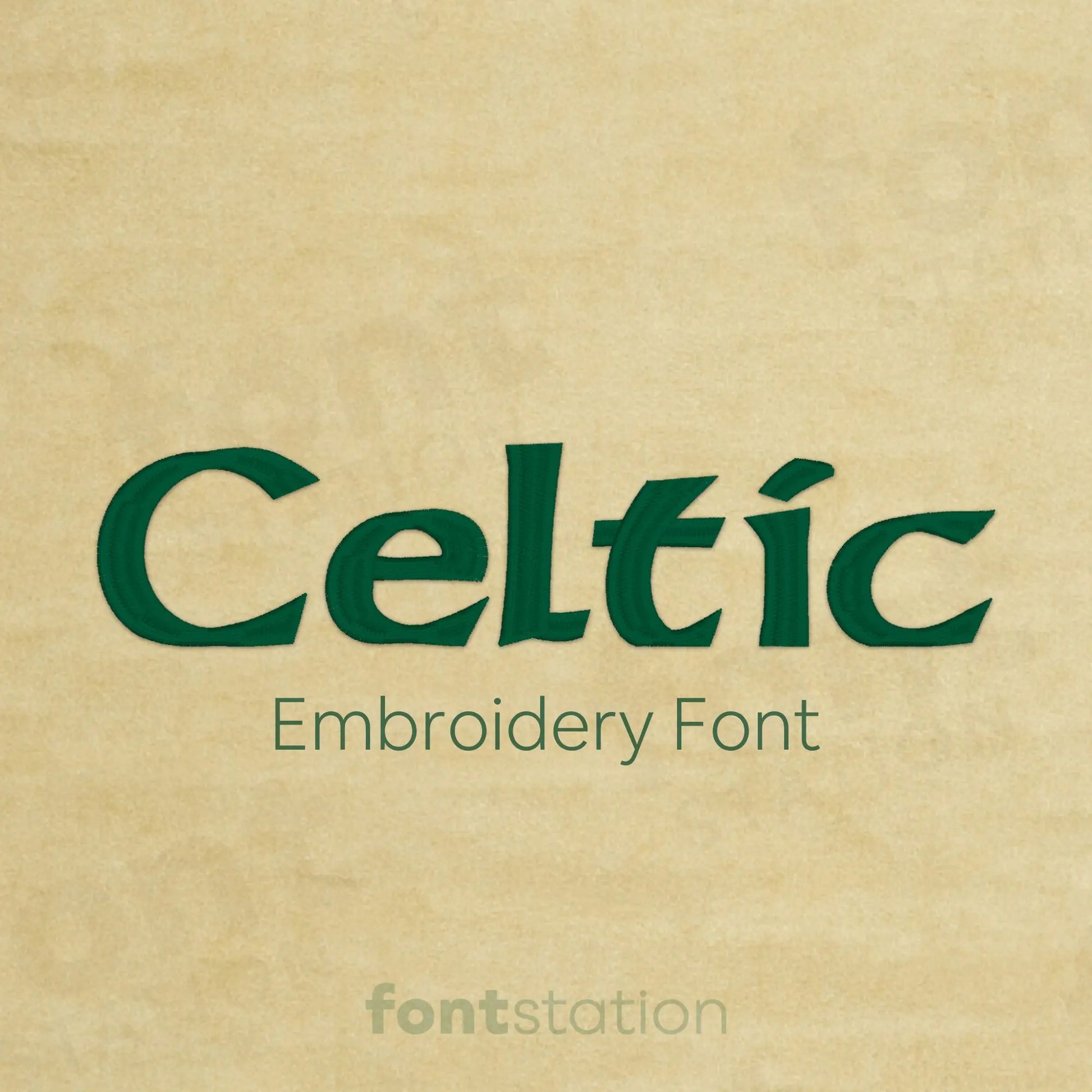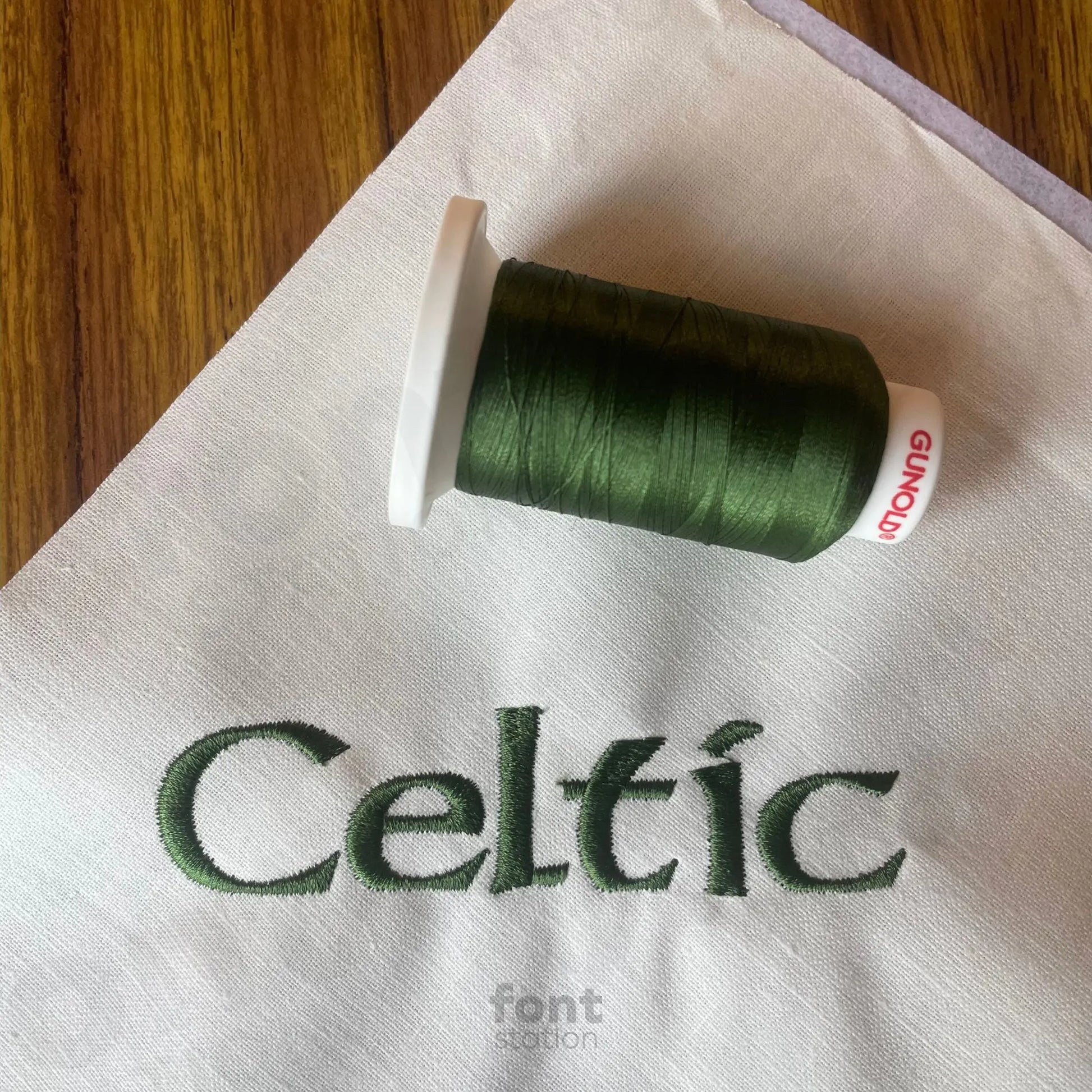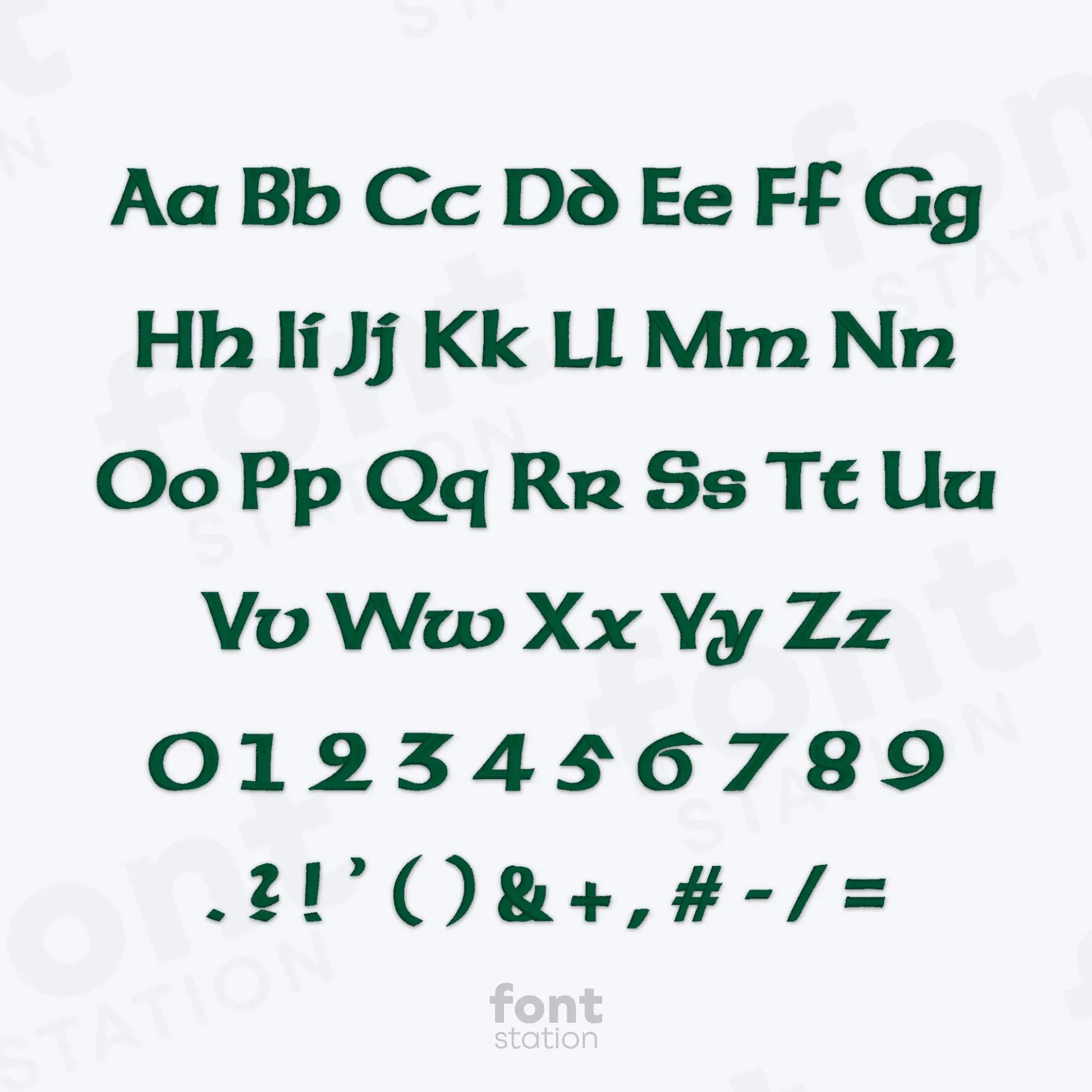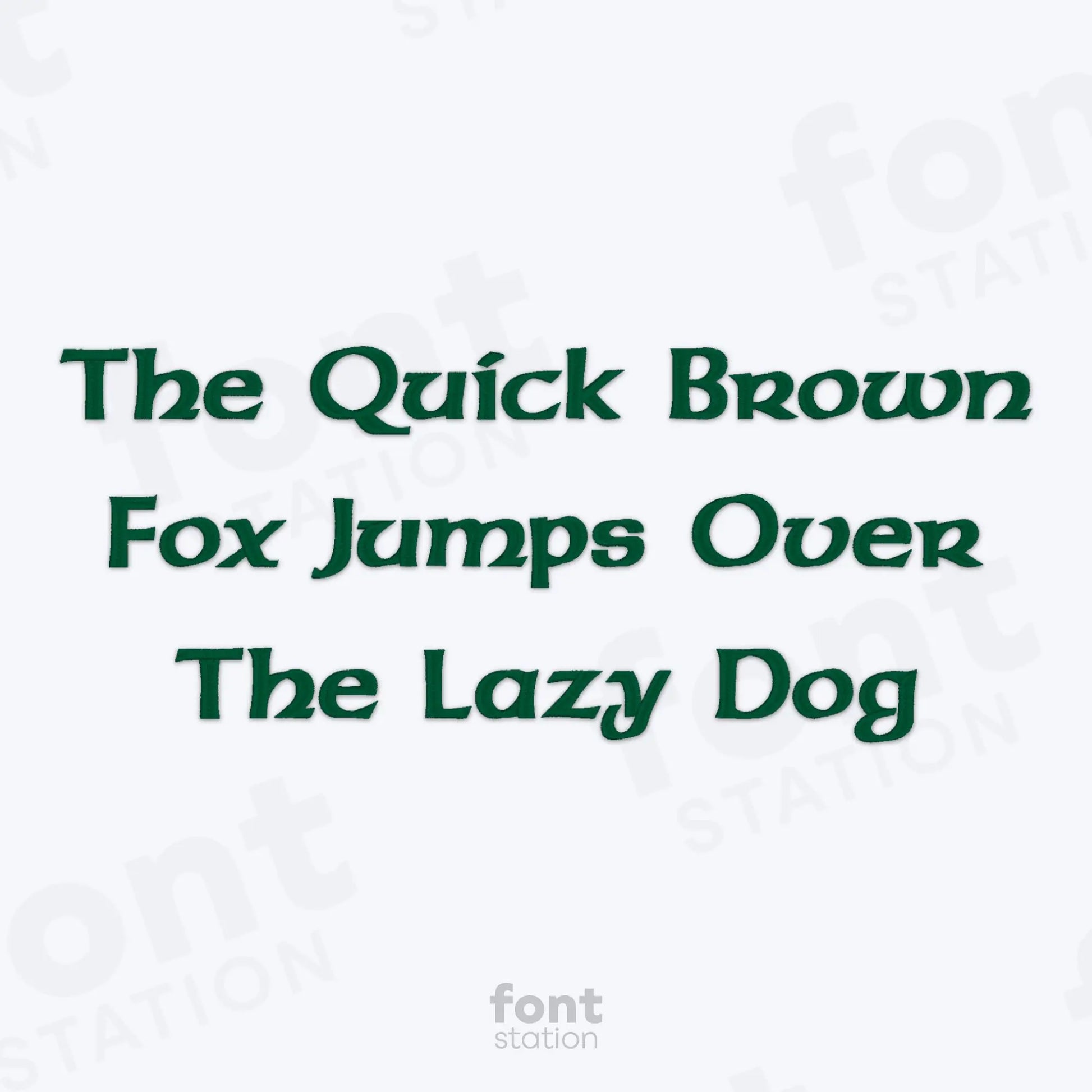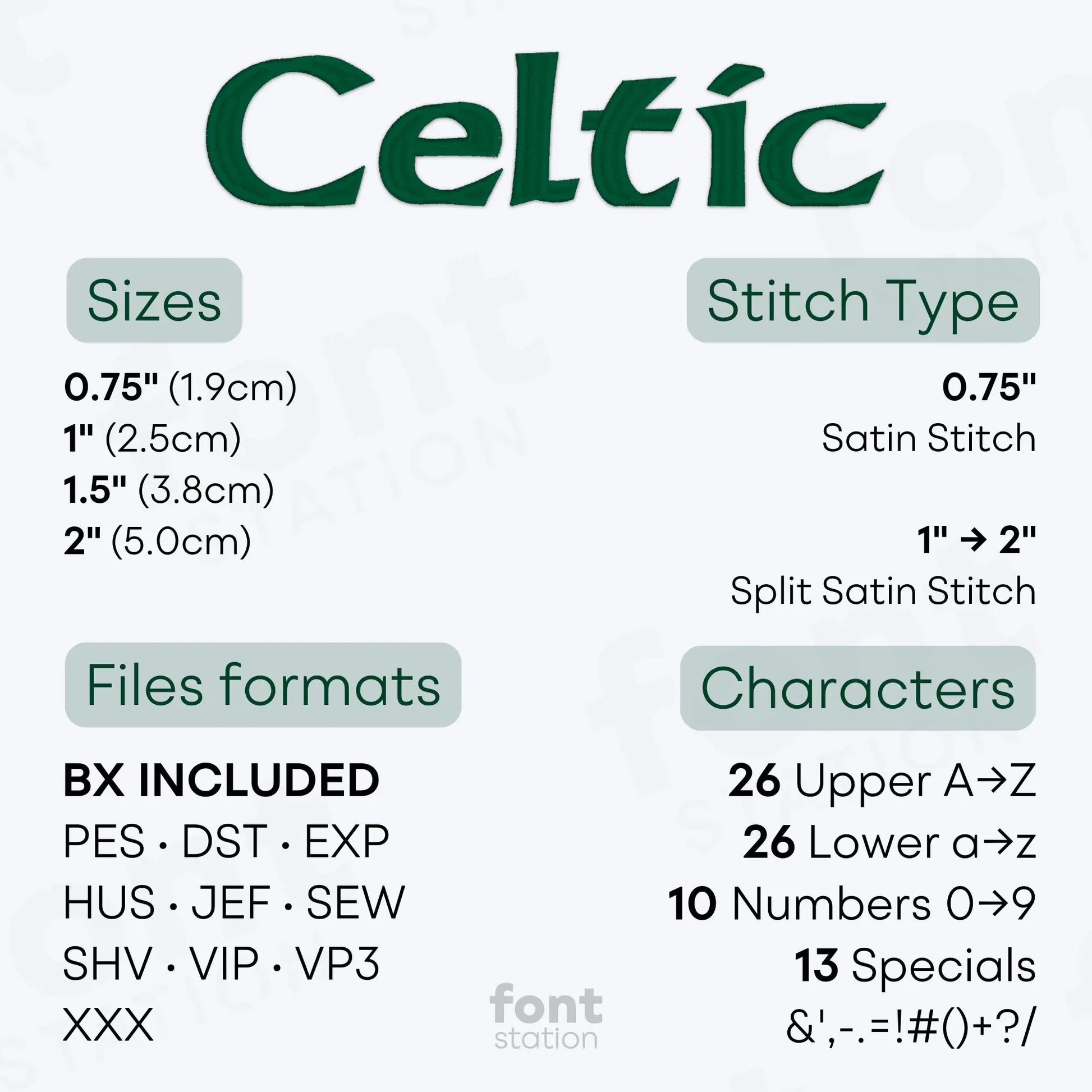
Celtic Embroidery Font
Introducing our Celtic embroidery font, a traditional Irish-inspired alphabet with decorative letters that stitch beautifully on your embroidery machine. Perfect for St. Patrick’s designs and any meaningful project.
About the Celtic Embroidery Font
Our Celtic embroidery font brings a timeless Irish charm and traditional elegance to your embroidery projects.
This unique machine embroidery font features a decorative Celtic-style alphabet inspired by Irish heritage and ancient script forms, perfect for monograms, wedding designs, St. Patrick’s Day projects, or any creation that calls for a touch of tradition. The stylized curves and intricate details in these embroidery letters make them a standout choice for bold and meaningful designs.